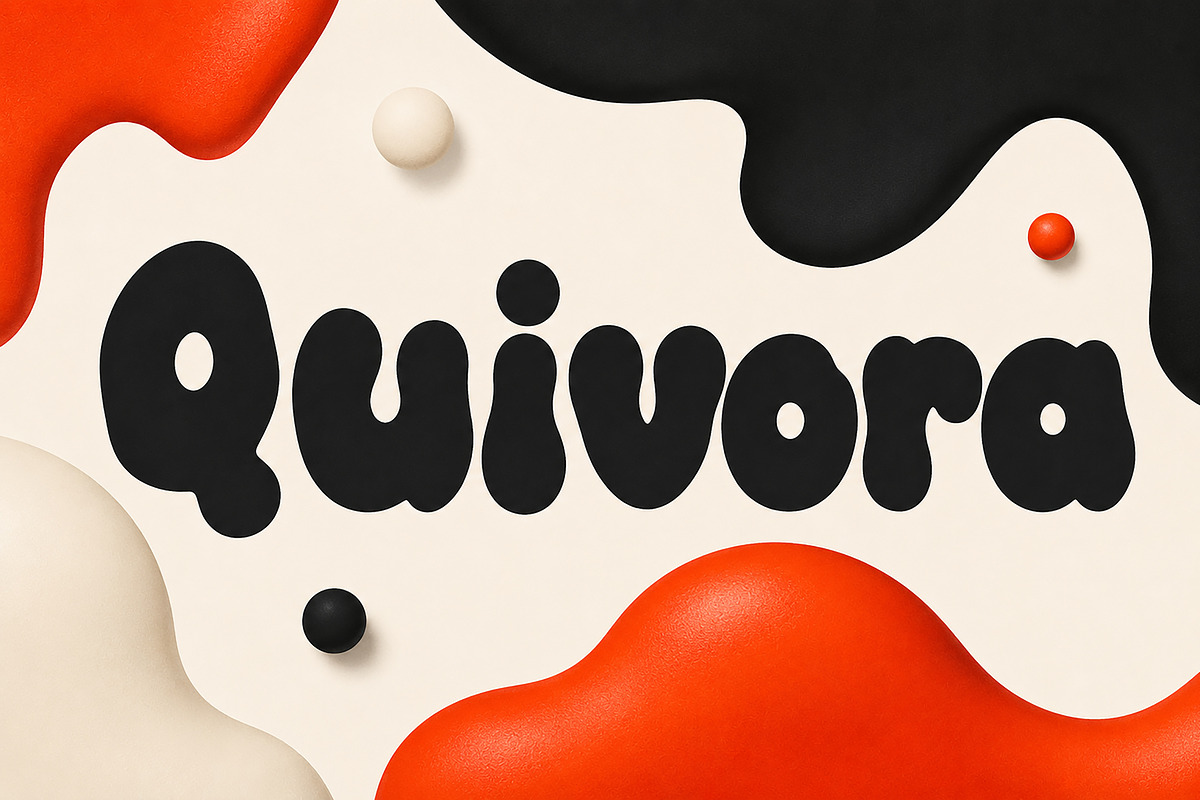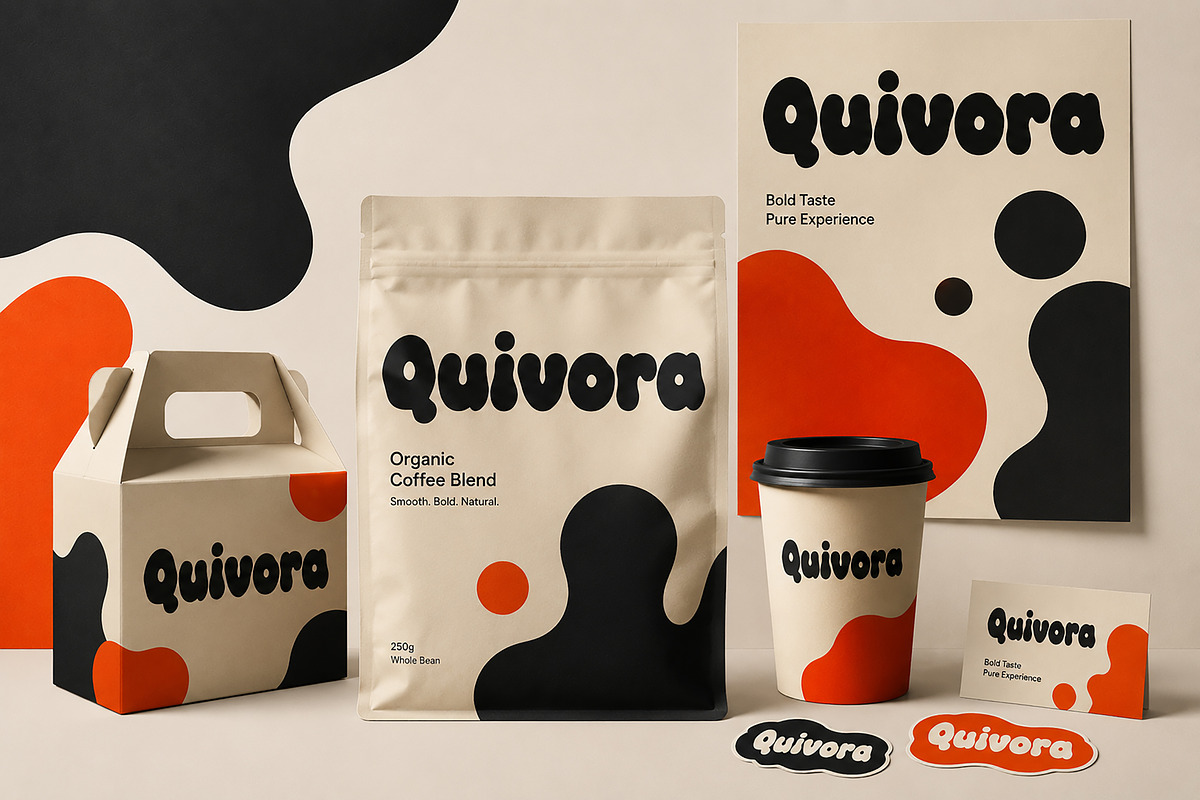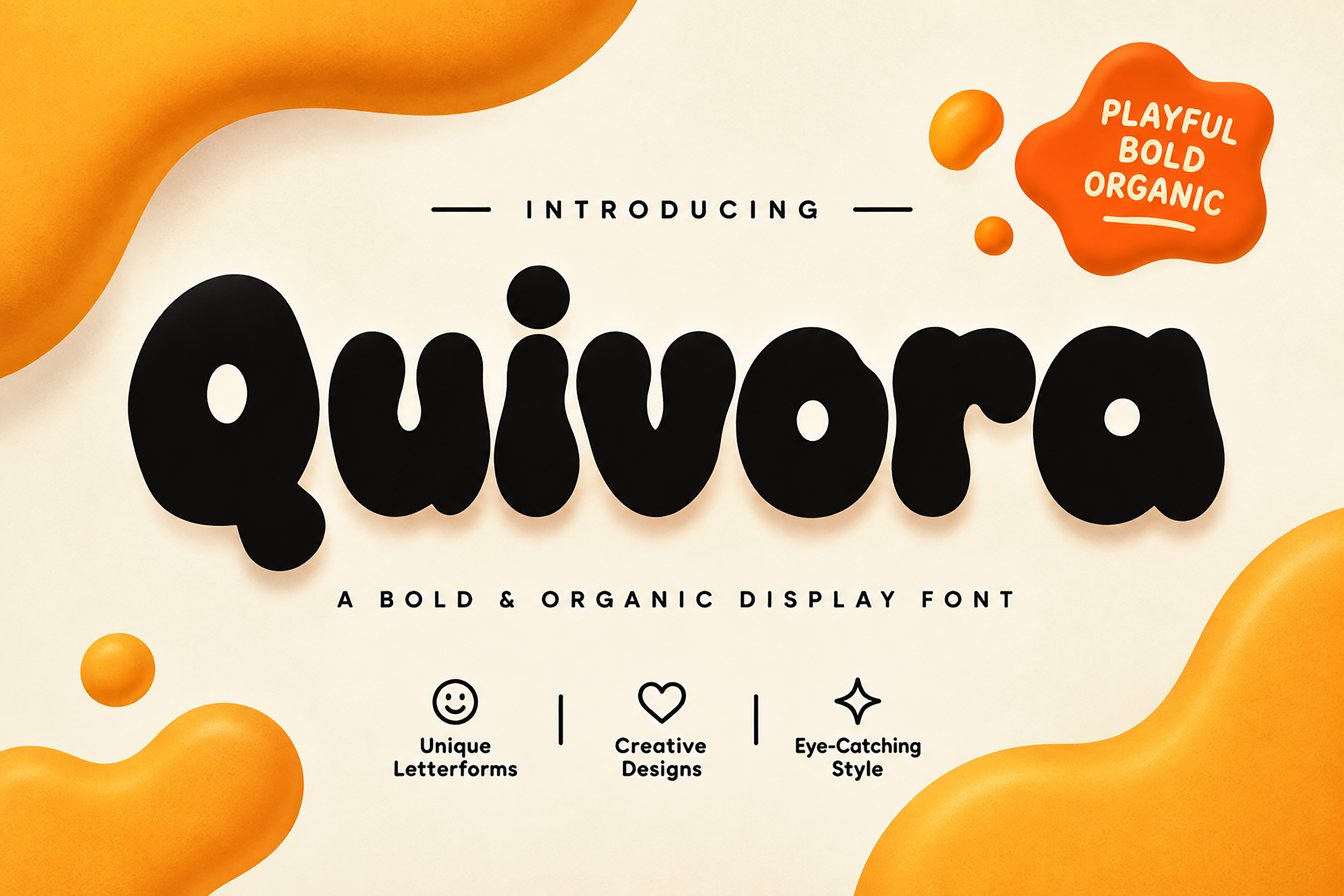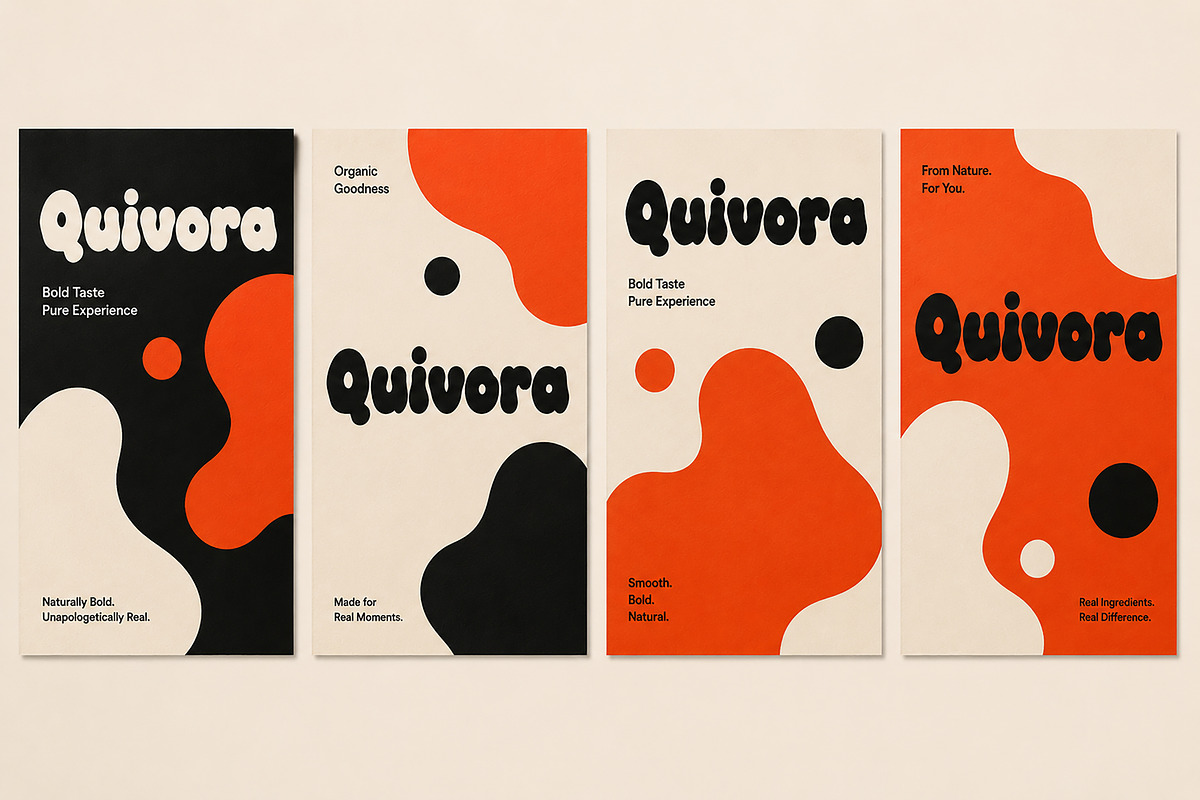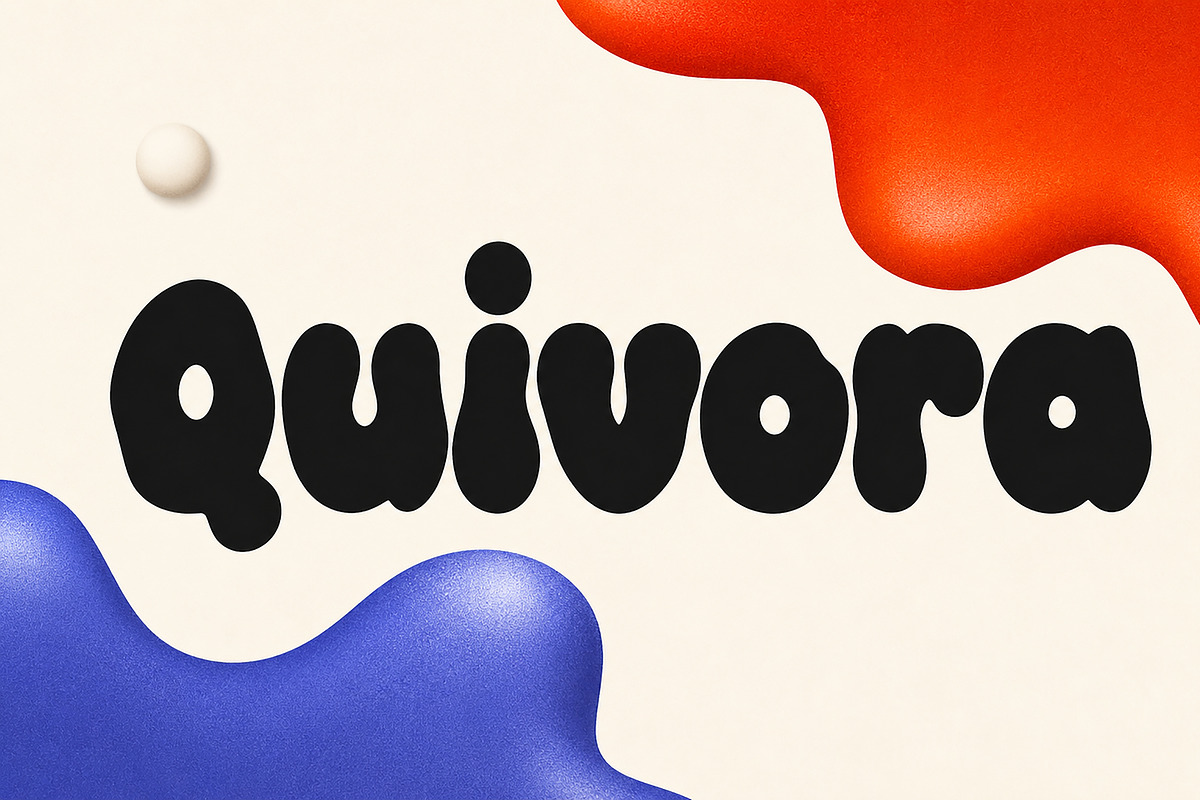
Quivora – Bold Organic Display Font
Quivora is a bold and playful organic display font with a unique, fluid personality. Its chunky letterforms, soft curves, and irregular rounded shapes create a fun, expressive, and eye-catching visual style.
Designed to stand out, Quivora is perfect for creative projects that need a strong and memorable typographic identity. The font works beautifully for bold headlines, branding concepts, posters, packaging, social media graphics, logos, editorial designs, and other creative display applications.
With its organic and unconventional character, Quivora brings a modern, playful, and artistic feeling to any design. Its distinctive letterforms are made to become the visual focus of your project and help create designs that feel fresh, bold, and memorable.
Branding & Visual Identity
Posters & Creative Campaigns
Editorial Design
Product Labels
Stickers & Merchandise
Advertising
Creative Headlines
Modern Display Typography
Bold and expressive display style
Organic and fluid letterforms
Playful and creative personality
Unique rounded shapes
Strong visual impact
Suitable for modern creative projects
Quivora is a bold organic display font with chunky, fluid, and playful letterforms. Perfect for branding, posters, packaging, logos, social media graphics, and creative design projects.